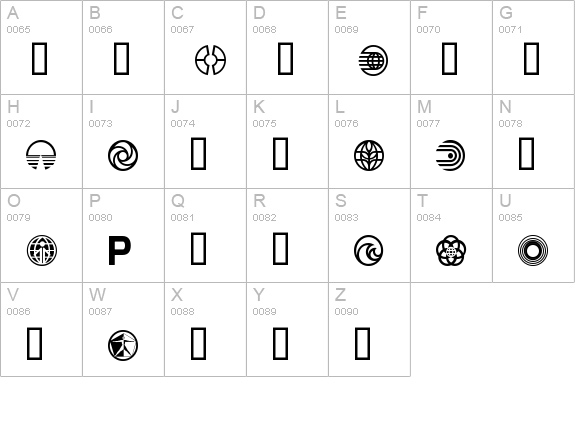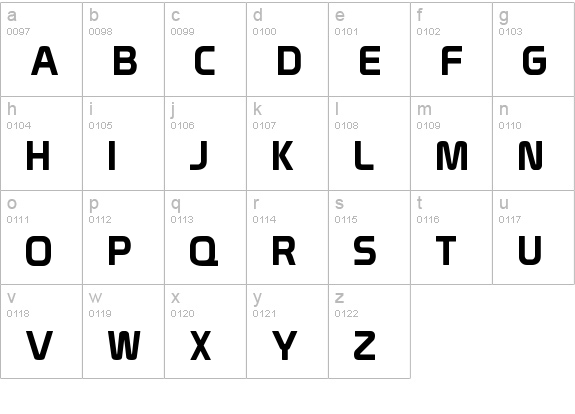
Prototype Pavilion Font Details
Prototype Pavilion font is a modern and stylish typeface that exudes sophistication and elegance. With its clean lines and sleek design, this font is perfect for a wide range of design projects, from branding to editorial design. The versatility of Prototype Pavilion font makes it a great choice for both print and digital applications. What sets Prototype Pavilion font apart is its unique and eye-catching style, which is sure to make your designs stand out. Whether you're creating a logo, poster, or website, this font will add a touch of class and professionalism to your work. The best part about Prototype Pavilion font is that it is free to download at FontsMarket.com. This means that you can start using this amazing font in your projects right away, without having to worry about any additional costs. Don't miss out on the opportunity to elevate your designs with Prototype Pavilion font today!